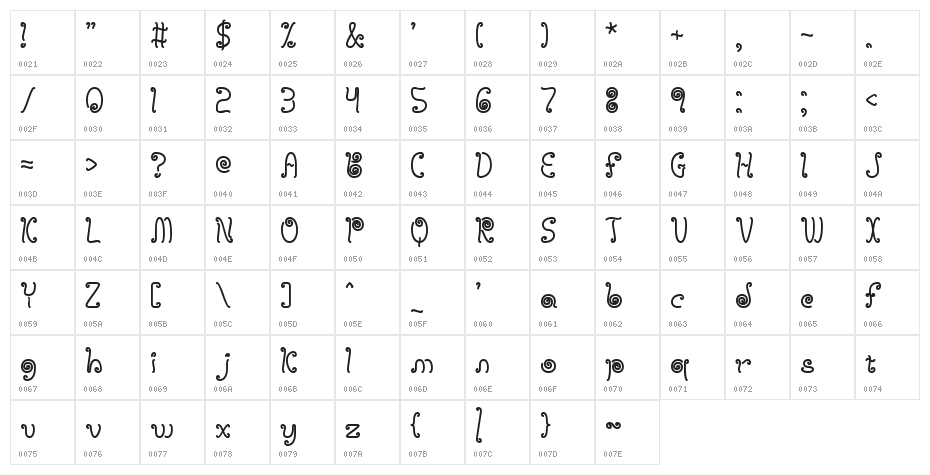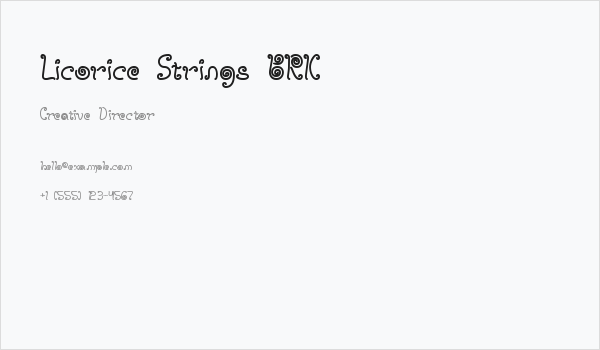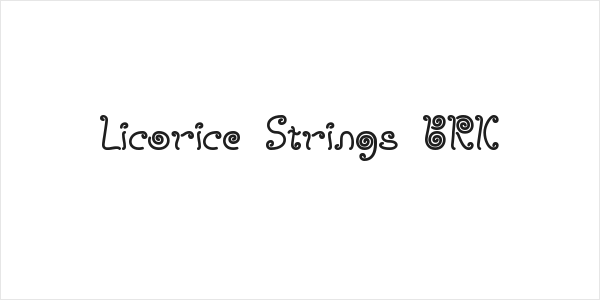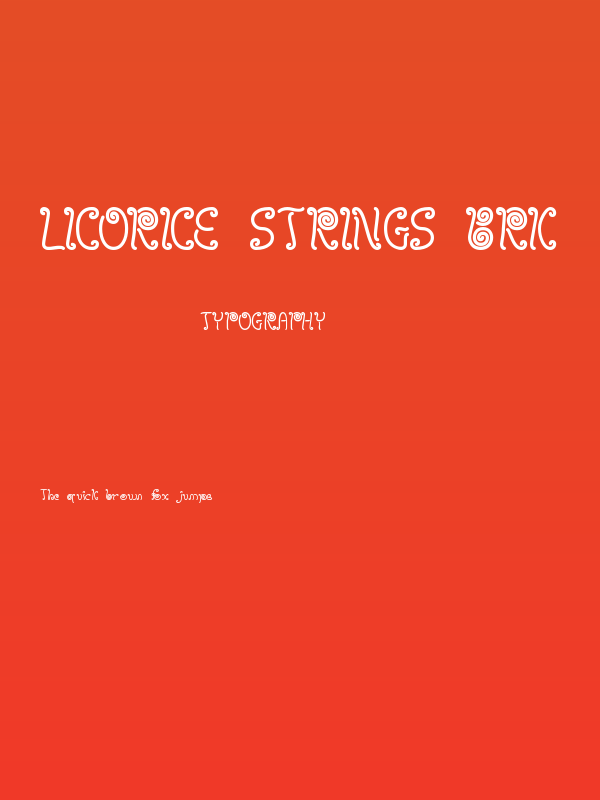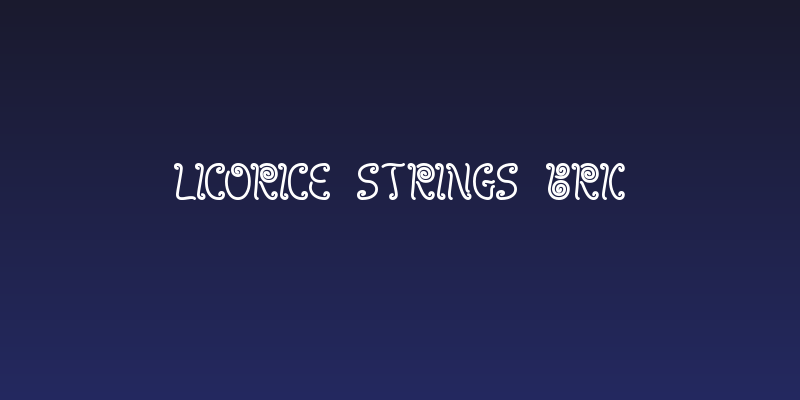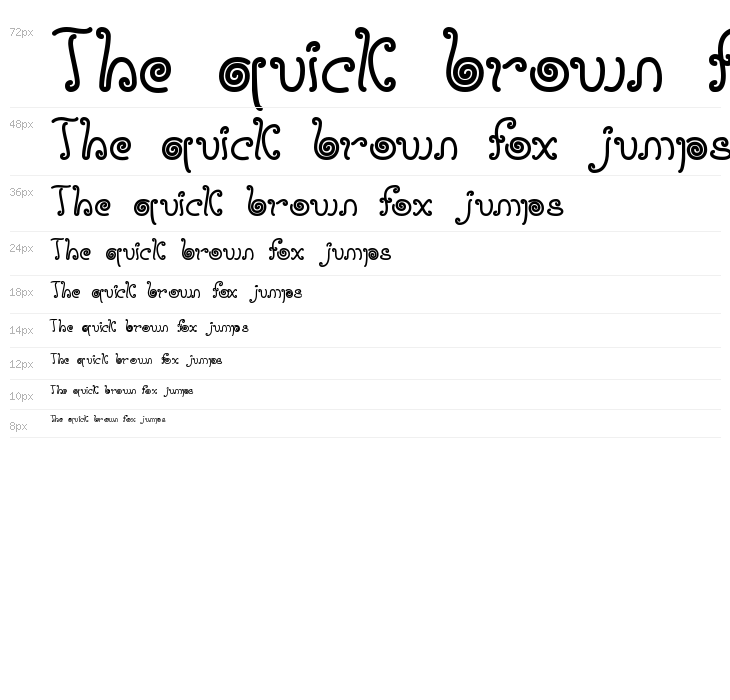
Licorice Strings BRK Font
Licorice Strings BRK Description
This playful and whimsical font features a unique, curly design with each character incorporating spiral elements. The letters are bold and rounded, giving a sense of fun and creativity. The uppercase and lowercase letters maintain a consistent style, with the spirals adding an artistic flair. Numbers and special characters follow the same design principles, making the font cohesive and visually appealing. Its distinct style makes it stand out, perfect for projects that require a touch of personality and charm.